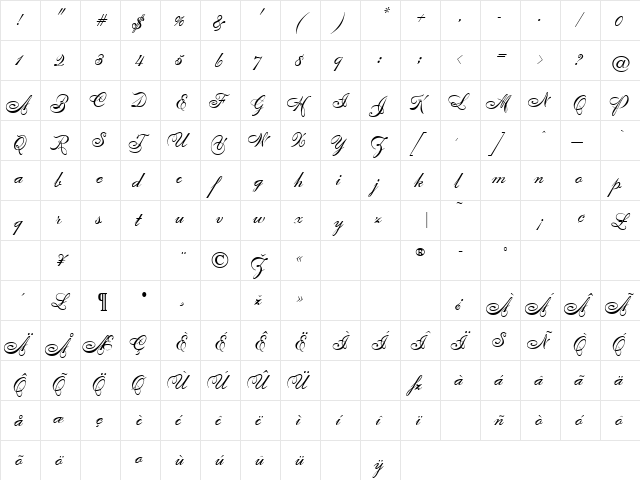
UniversityScript Regular
Design Context for UniversityScript Typeface
UniversityScript flows with the natural rhythm of handwritten lettering, making it ideal for designs that call for warmth and personal expression.
Font Pairing: Combine UniversityScript with a simple geometric sans for maximum contrast — the tension between flowing curves and clean structure is a classic typographic pairing.
Pro Tip: Pair UniversityScript with a clean sans-serif for supporting text. The contrast between fluid script and geometric structure creates an elegant typographic hierarchy.